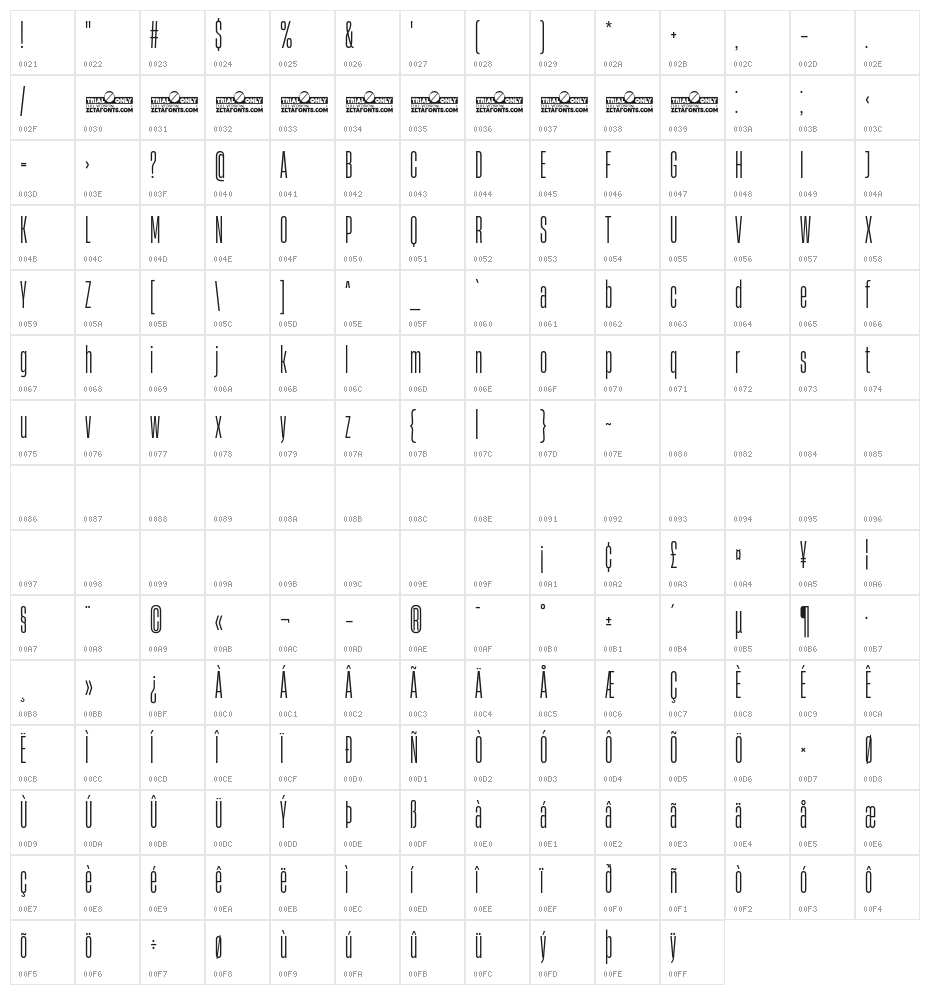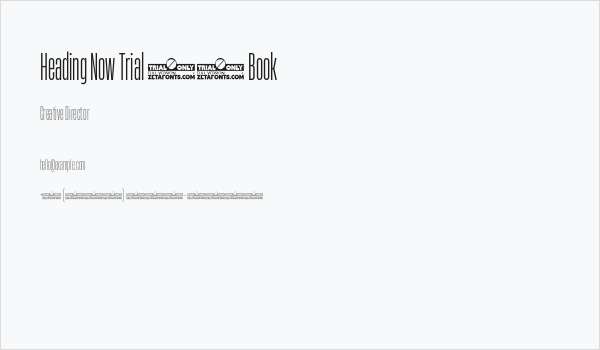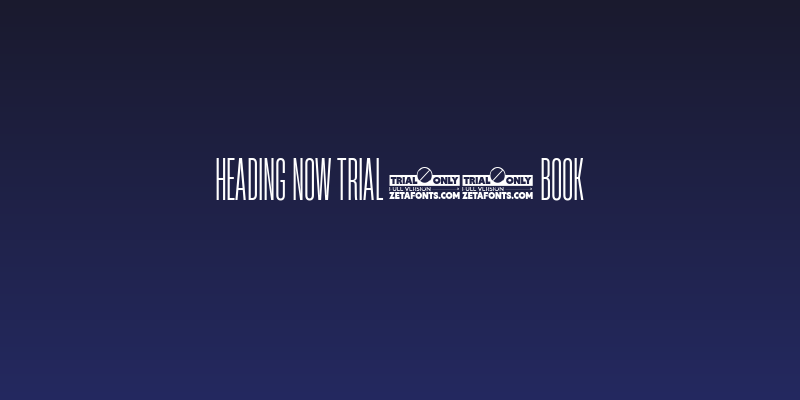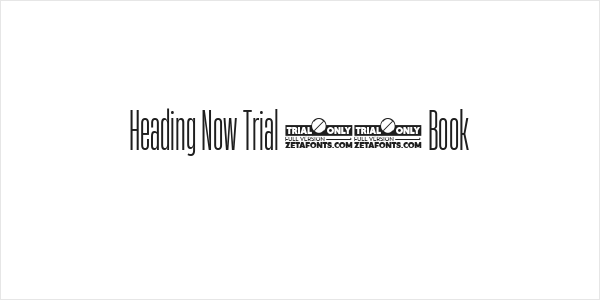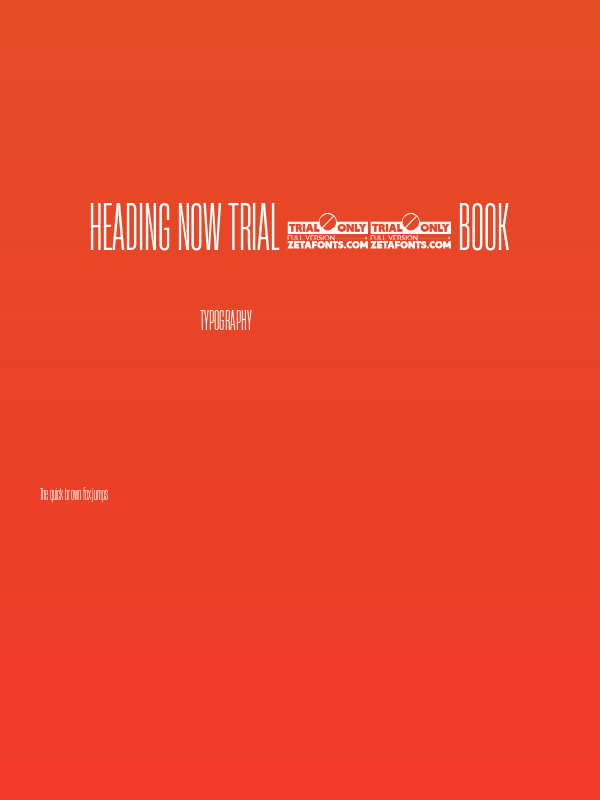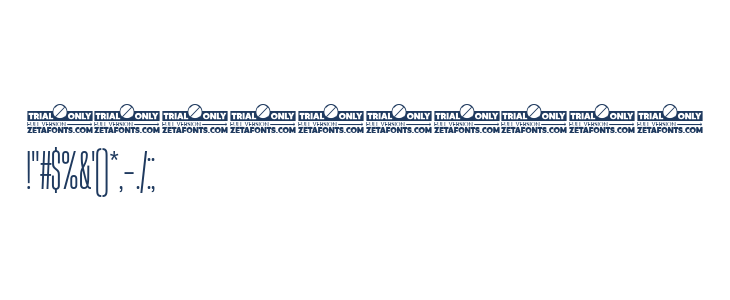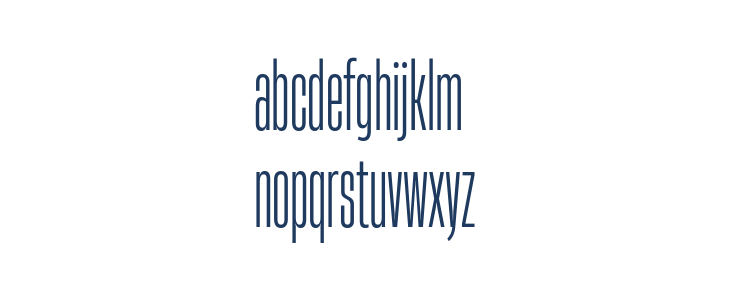
Heading Now Trial 13 Book Font
Heading Now Trial 13 Book Description
This font features a tall, narrow design with clean, straight lines and minimal curves, giving it a modern and sleek appearance. The uppercase letters are particularly elongated, while the lowercase letters maintain a consistent height, contributing to a uniform look. The font's thin strokes and high contrast between thick and thin lines add to its elegance and readability. The spacing between characters is tight, enhancing its compact and efficient style. Special characters are designed with the same attention to detail, ensuring they blend seamlessly with the alphabetic characters.
| Proposed Projects | Ideal for headlines, posters, and branding projects where a modern and sleek appearance is desired. |